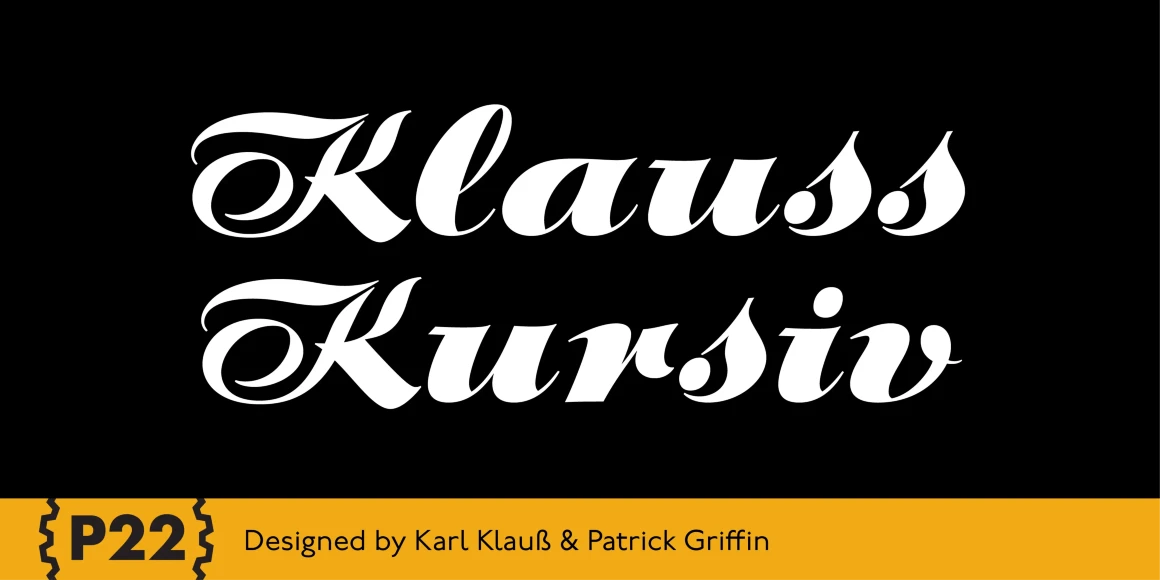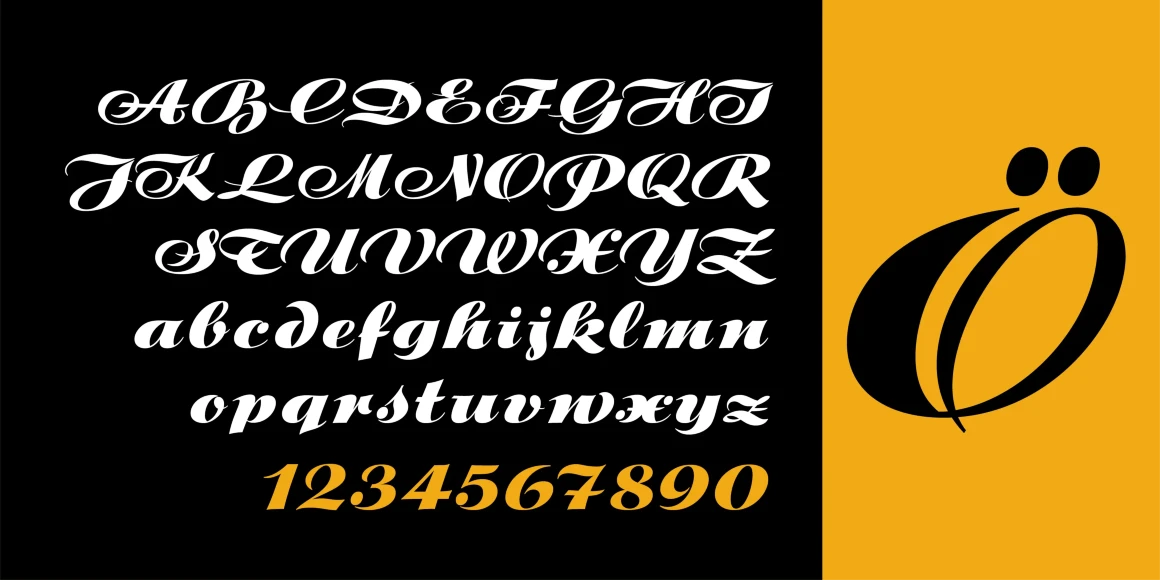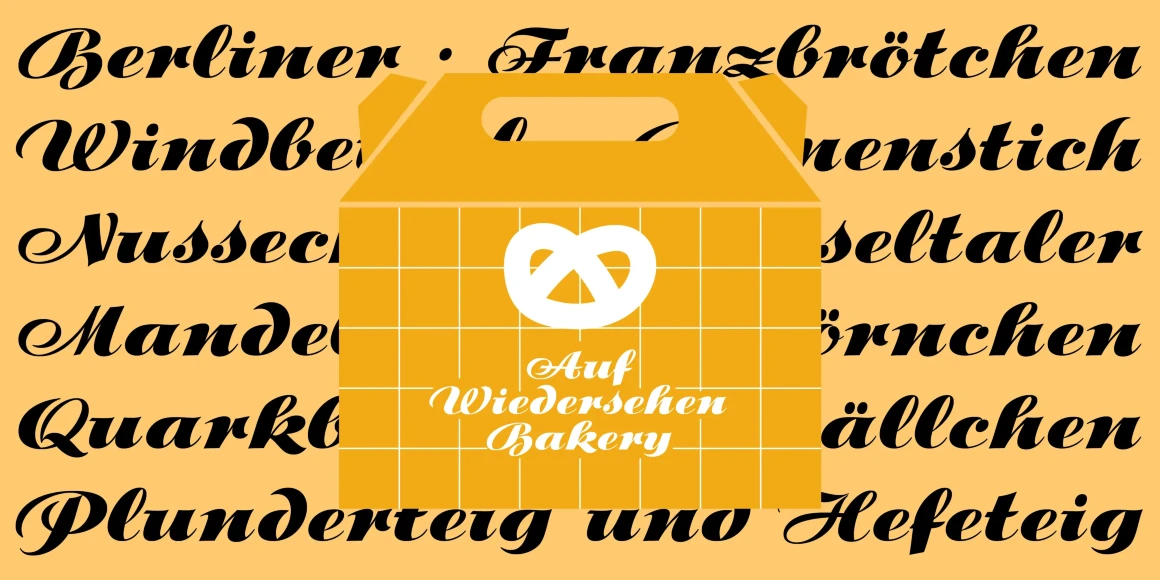
Klauss Kursiv
P22 Klauss Kursiv is the first ever digital revival and expansion of the last face Karl Klauß designed for the Genzsch & Heyse foundry in Stuttgart before he died in 1956. Karl Klauß’s classical training in the graphic arts gave him solid chops to use as a springboard for design ideas that remained relevant among the countless trends fleeting around the turmoil of two world wars. By the mid-1950s, a kind of ornamental deco aesthetic was well on its way into mainstream design in post-war Europe, and demand was high for unique, lively and non-minimal ad faces. Klauß, a reliable designer with a proven track record of calligraphic faces, pushed the envelope on his own calligraphy and designed something that packages elegance in a boldness seldom seen before in luxury scripts. Quite a bit of talent is on display in Klauss Kursiv. In spite of the restraint this kind of design imposes on itself almost by default, the interplay between thick and thin never seems forced or challenging. Clear, natural strokes build a compact alphabet that demonstrates the wrist control of a veteran calligrapher. Creative nib angling segues into very clever start-and-stop constructs to make attractive forms that work quite well together, yet stand well to individual scrutiny. P22 Klauss Kursiv comes with a load of built-in alternates and ligatures in a font of over 470 glyphs, providing extended support for Latin languages.
Designed by Karl Klauß & Patrick Griffin